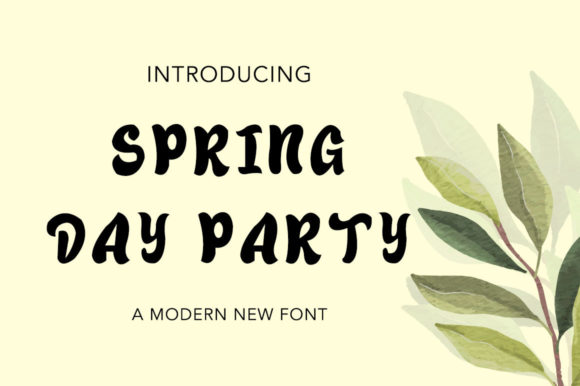
Spring Day Party: A Cute Font for Creative Projects
Spring Day Party is a charming display font that brings a playful and casual vibe to any design. Its soft, hand-drawn style makes it perfect for adding a personal touch to creative work. Whether you're designing for social media, crafting DIY projects, or working on a professional logo, Spring Day Party can elevate your visuals with ease.
This font is ideal for those who want to express creativity without the complexity of more formal typefaces. Its friendly appearance works well in both digital and print formats, making it versatile for a wide range of applications. From t-shirt designs to signage, Spring Day Party adds a unique flair that stands out.
What Makes Spring Day Party Special?
Unlike many fonts that prioritize structure and clarity, Spring Day Party focuses on personality. It has a slightly uneven baseline and organic curves that give it a handcrafted feel. This makes it especially appealing for projects that aim to feel more personal or artistic rather than corporate or rigid.
The font's casual nature means it’s not always the best choice for body text or long paragraphs. However, when used as a heading, logo, or decorative element, it shines. Its charm lies in its ability to convey warmth and approachability, which can be incredibly valuable in branding or marketing efforts.
Why Use Spring Day Party?
If you're looking for a font that adds character to your work, Spring Day Party could be the right choice. It’s particularly useful for those who want to make their content feel more expressive and less generic. For example, a small business owner creating a logo might find that this font gives their brand a more inviting and friendly image.
For bloggers or social media creators, Spring Day Party can help make posts stand out. Using it for captions, headlines, or graphic elements can add visual interest and make content more engaging. It’s also a great option for wedding invitations, greeting cards, or other personal projects where a warm, handmade look is desired.
Where Can You Use Spring Day Party?
Spring Day Party is suitable for a variety of contexts. Here are some common uses:
- Logos and Branding: Ideal for brands that want to appear approachable and creative.
- Headings and Titles: Adds a unique touch to website headers, blog titles, or presentation slides.
- T-Shirts and Apparel: Great for custom designs that need a fun, eye-catching font.
- Signage and Banners: Perfect for events, retail spaces, or promotional materials.
- DIY Projects: Works well for handmade crafts, scrapbooking, or personalized gifts.
Its adaptability means it can fit into both casual and semi-professional settings. For instance, a teacher might use it for classroom posters or handouts to make learning more visually engaging. A marketer could use it for social media graphics to create a more relatable brand voice.
Best Practices for Using Spring Day Party
To get the most out of Spring Day Party, consider the following tips:
- Use It Sparingly: Because of its distinct style, it’s best to use it as a focal point rather than in large blocks of text.
- Pair It With Simpler Fonts: Combining it with a clean, modern font can balance the design and improve readability.
- Test It in Different Sizes: The font may look different at various sizes, so check how it appears in your final project.
These practices help ensure that Spring Day Party enhances your design rather than overwhelming it. Experimenting with different layouts and color schemes can also help you discover new ways to use the font effectively.
Who Benefits from Spring Day Party?
Spring Day Party appeals to a broad audience. Beginners in graphic design may find it easy to use and visually appealing. Creative professionals, such as illustrators or designers, can use it to add a unique element to their work. Entrepreneurs and small business owners often appreciate fonts that help them stand out in a competitive market.
For educators, using Spring Day Party in lesson plans or classroom materials can make learning more interactive and visually stimulating. Hobbyists and crafters enjoy its versatility for personal projects, while marketers and content creators can use it to make their online presence more engaging.
Final Thoughts on Spring Day Party
Spring Day Party is more than just a font—it’s a tool for expressing creativity in a friendly and approachable way. Its casual, hand-drawn style makes it ideal for a wide range of applications, from personal projects to professional branding. Whether you’re designing for Instagram, creating a logo, or making a custom t-shirt, this font offers a unique way to bring your ideas to life.
As with any design element, the key to using Spring Day Party effectively is understanding its strengths and limitations. By choosing the right context and pairing it with complementary elements, you can make your work stand out while maintaining clarity and professionalism.